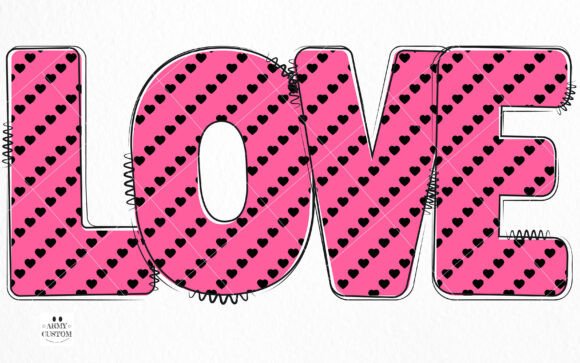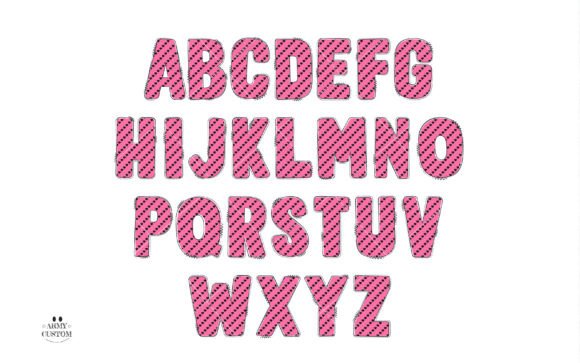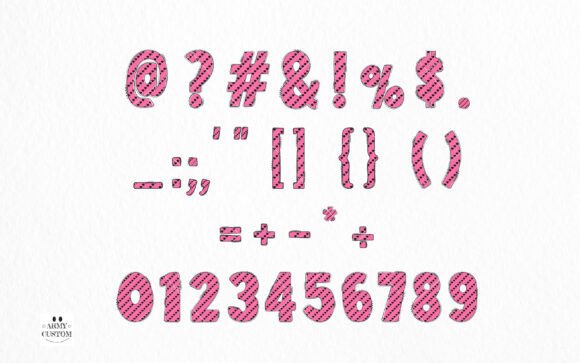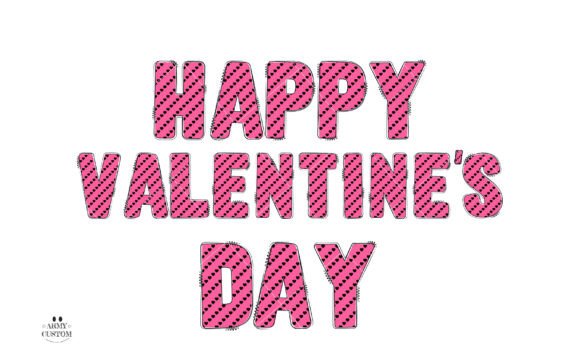
Introduction to Love Valentine’s Heart Font
Do you remember the thrill of creating a handmade Valentine’s Day card for your loved one? The excitement of crafting a unique and thoughtful message that speaks directly to their heart? For designers, finding the perfect design resource to convey this sentiment can be a challenge. That’s where the enchanting “Love Valentine’s Heart Font” comes in – a free download that will make your creative project shine with love and affection.
This doodle font is a masterpiece of intricately designed heart patterns that will touch your heart and the hearts of your loved ones. With its high-quality design, it’s the perfect way to express your sentiments on the day dedicated to love. Whether you’re a seasoned designer or a creative enthusiast, the “Love Valentine’s Heart Font” is a valuable addition to your design arsenal, offering endless possibilities for crafting beautiful and heartfelt messages.
Whether you’re looking for a design element with a transparent background or a unique way to add a personal touch to your creations, this font is sure to impress. With its compatibility with popular design programs and cutting machines, the “Love Valentine’s Heart Font” is a must-have resource for designers looking to add a little extra love to their projects.
Key Features of Love Valentine’s Heart Font
- High-quality design with intricate details, perfect for adding a touch of elegance to Valentine’s Day-themed projects.
- Unique, hand-drawn design elements and ornate typography make it a standout choice for creative projects.
Honest Review: Love Valentine’s Heart Font
I recently stumbled upon the Love Valentine’s Heart Font while searching for design resources to enhance my creative project. As a designer, I appreciate finding high-quality assets that can elevate my work, and this font definitely delivers.
Here are some aspects that work well: ✨ The font’s playful and romantic vibe is perfect for Valentine’s Day-themed designs, and it’s available for free download, making it a great addition to any project. The transparent background allows for seamless integration into various design elements, and the font’s high-quality vector format ensures crisp and clear rendering.
However, there are a few limitations to consider: ⚠️ The font’s design, while charming, may not be suitable for more serious or professional projects. Additionally, the font’s style can be a bit overused, so be cautious not to overdo it in your design.
In conclusion, the Love Valentine’s Heart Font is a great design resource for those working on creative projects that require a touch of romance and whimsy. While it may not be the best fit for every project, its unique charm and high-quality design make it a valuable addition to any designer’s toolkit.
- Perfect for Valentine’s Day-themed designs
- High-quality vector format for crisp rendering
The Love Valentine’s Heart Font is perfect for creative projects such as Valentine’s Day cards, invitations, and gift tags. It’s also great for social media graphics, blog posts, and other online content.